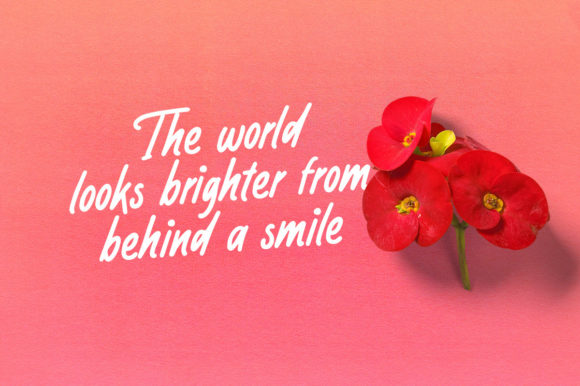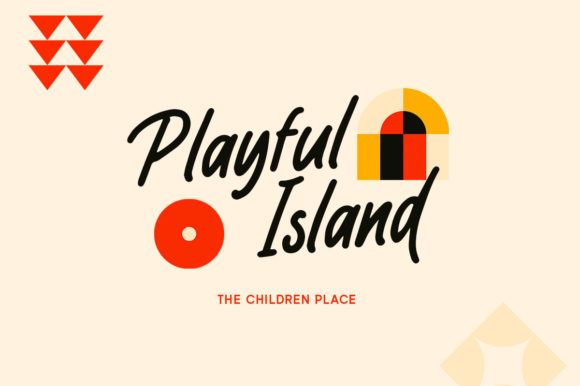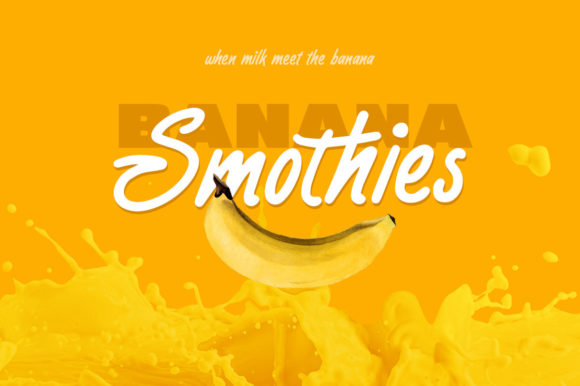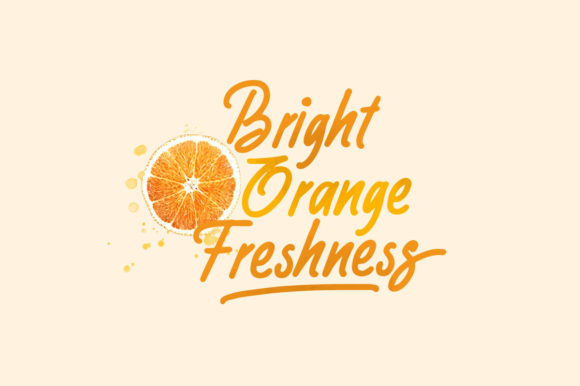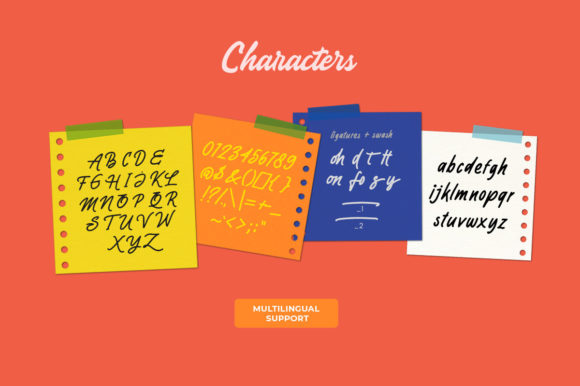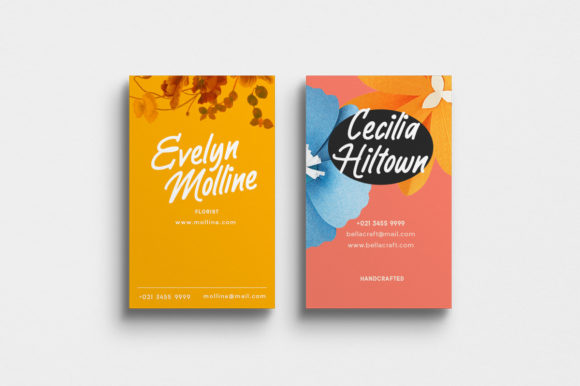
Introduction to Point Smile Font
Have you ever been stuck on a creative project, scrolling through endless design resources, searching for the perfect font to give your work that extra oomph? You know, that one font that instantly elevates your design from good to great? For designers, finding the right font can be a game-changer. It’s the difference between a beautiful, professional-looking logo and one that just doesn’t quite cut it.
Enter the Point Smile Font, a clean, adaptable, and vintage styled script font that’s perfect for designers looking to add a touch of elegance to their projects. Whether you’re working on a branding campaign, creating a wedding invitation, or designing a logo for a new business, this font is a valuable asset to have in your design arsenal.
Key Features of Point Smile Font
- Unique and playful design perfect for creative projects
- Comprehensive character set including uppercase and lowercase letters, numbers, and punctuation marks
- Designed to be highly legible and versatile for use in a variety of design contexts
- Perfect design resource for graphic designers, digital artists, and anyone looking for a fun and creative font
Honest Review: Point Smile Font
I recently stumbled upon the Point Smile Font, and I have to say, it’s been a game-changer for my creative projects. This free download has quickly become a go-to design resource for me, and I’m excited to share my thoughts on it.
- ✨ The font is incredibly versatile, with a wide range of applications from playful headlines to body text.
- ⚠️ The font may not be suitable for formal or professional projects due to its playful nature.
- ⚠️ Some users may find the font too whimsical or cutesy, which can be a drawback for certain design styles.
Overall, I’m thoroughly impressed with the Point Smile Font. Its versatility, high quality, and ease of use make it a valuable addition to any designer’s toolkit. Whether you’re working on a creative project or simply need a fun font for a social media post, this font is definitely worth checking out.
Point Smile Font
Tips for Getting the Most Out of Point Smile Font
For a high-quality design, use the Point Smile Font in conjunction with a transparent background to create a clean and modern look. You can also use it as a design resource for creative projects, such as logos, posters, and social media graphics.
The Point Smile Font is ideal for use in free download templates, such as invitations, flyers, and brochures. It’s also great for creating eye-catching headings and titles in your design projects.
Alternatives to Point Smile Font
Compared to Point Smile Font, Great Vibes Font offers a more modern and playful look, ideal for designs that require a bit of energy and fun.
Pacifico Font is a beautiful, high-quality script font that’s perfect for creative projects that require a touch of elegance and sophistication. It features a transparent background, making it ideal for use on any background color or image. When to use: travel brochures, food menus, or any design project where a relaxed and beachy feel is desired.
Q: Is the Point Smile Font available in different weights and styles?
The Point Smile Font comes in a single weight and style, making it easy to use in various design applications. However, some designers may prefer to use font combinations or pair the Point Smile Font with other fonts to achieve the desired visual effect.